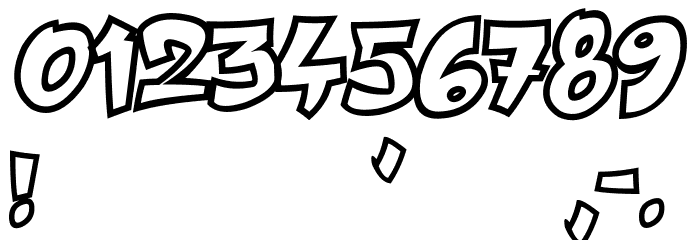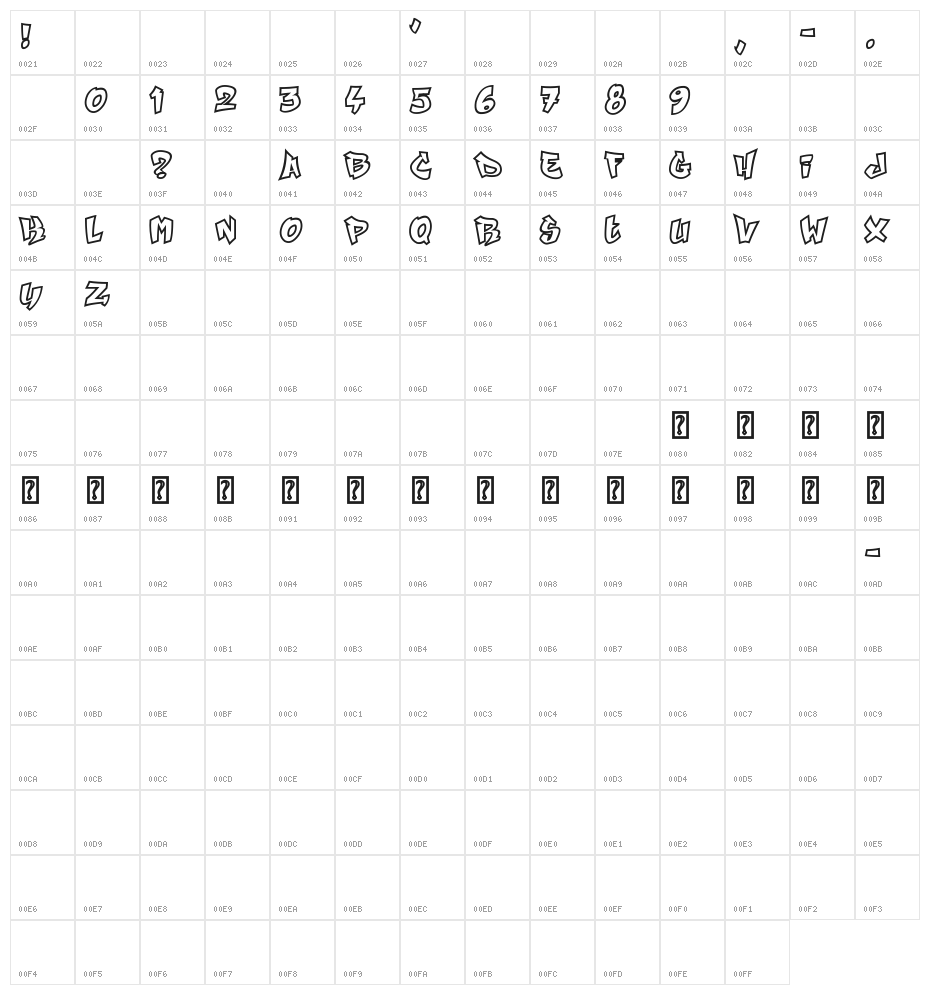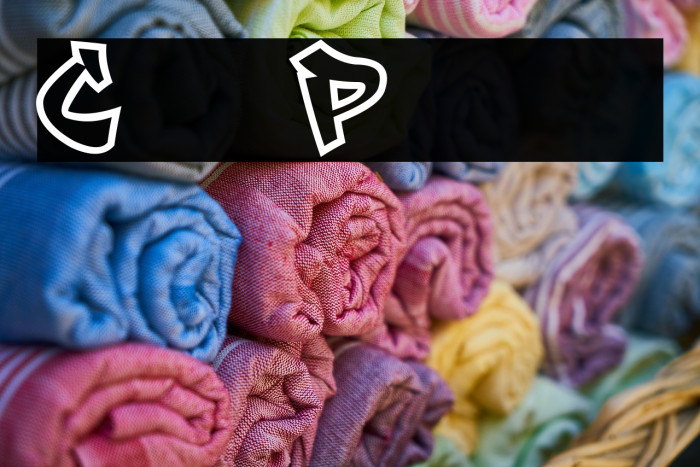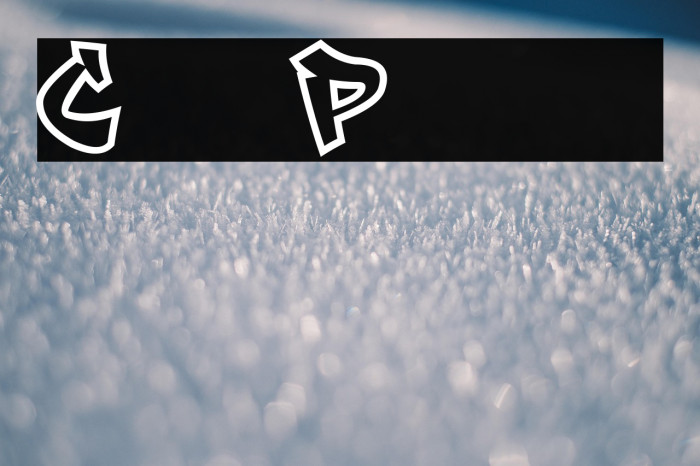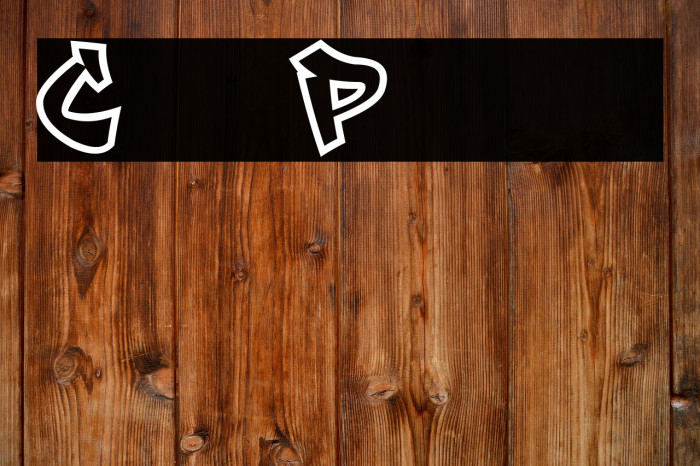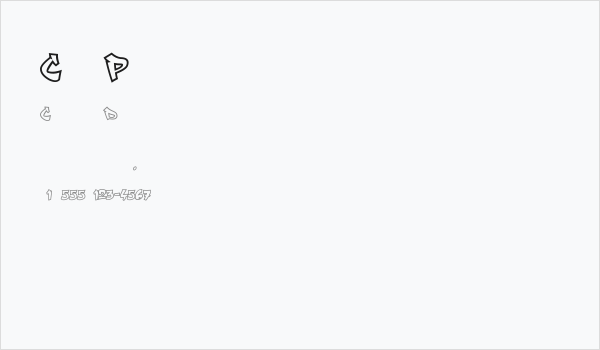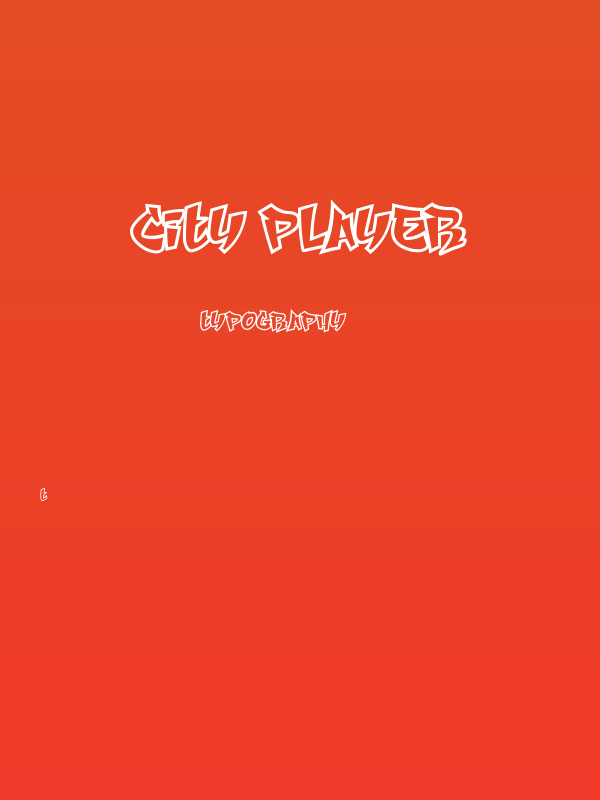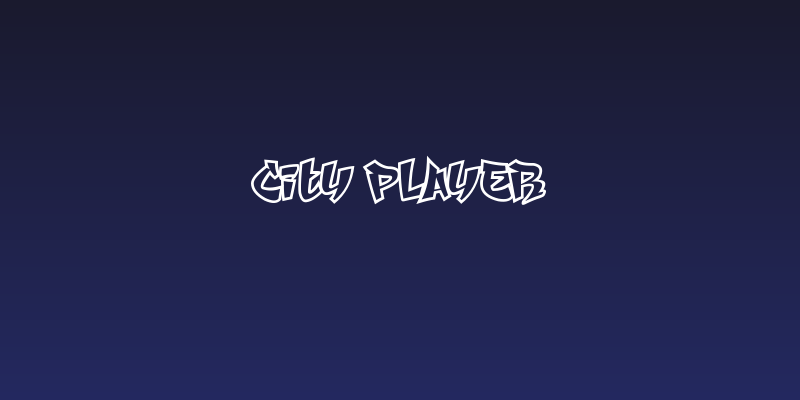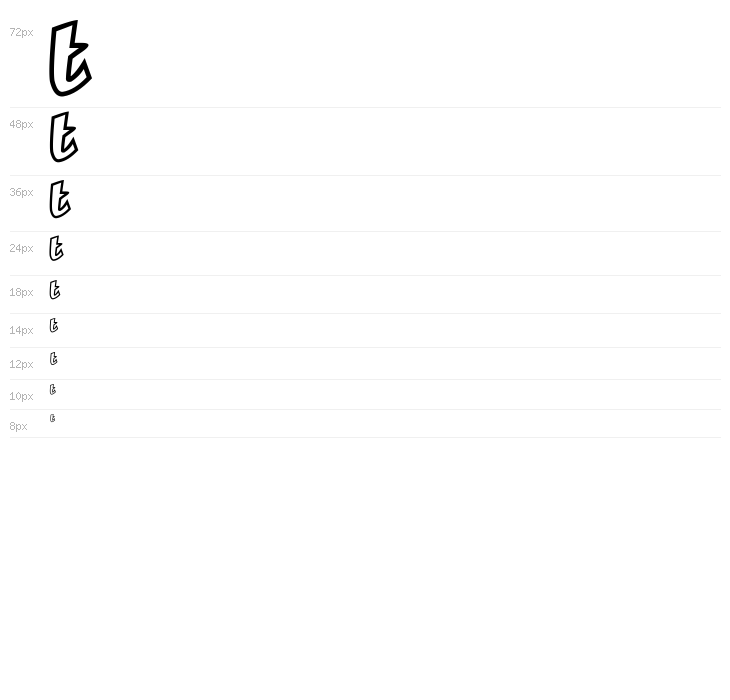
City Player Font
This font features a bold, dynamic style with a playful and energetic vibe. The characters are designed with a graffiti-like appearance, incorporating sharp angles and exaggerated curves that give it a street art aesthetic. The uppercase letters are particularly striking, with a strong presence that commands attention. The numbers and special characters maintain the same lively and bold characteristics, making them suitable for eye-catching designs. The font's unique style is perfect for projects that require a modern and urban touch, such as posters, album covers, or branding for creative industries.
A bold, graffiti-inspired font with a dynamic and playful style.
- Font: City Player
- Proposed Projects: Ideal for street art-themed designs, music album covers, urban branding, and creative posters.
- Overall Style: Modern, Urban, Playful